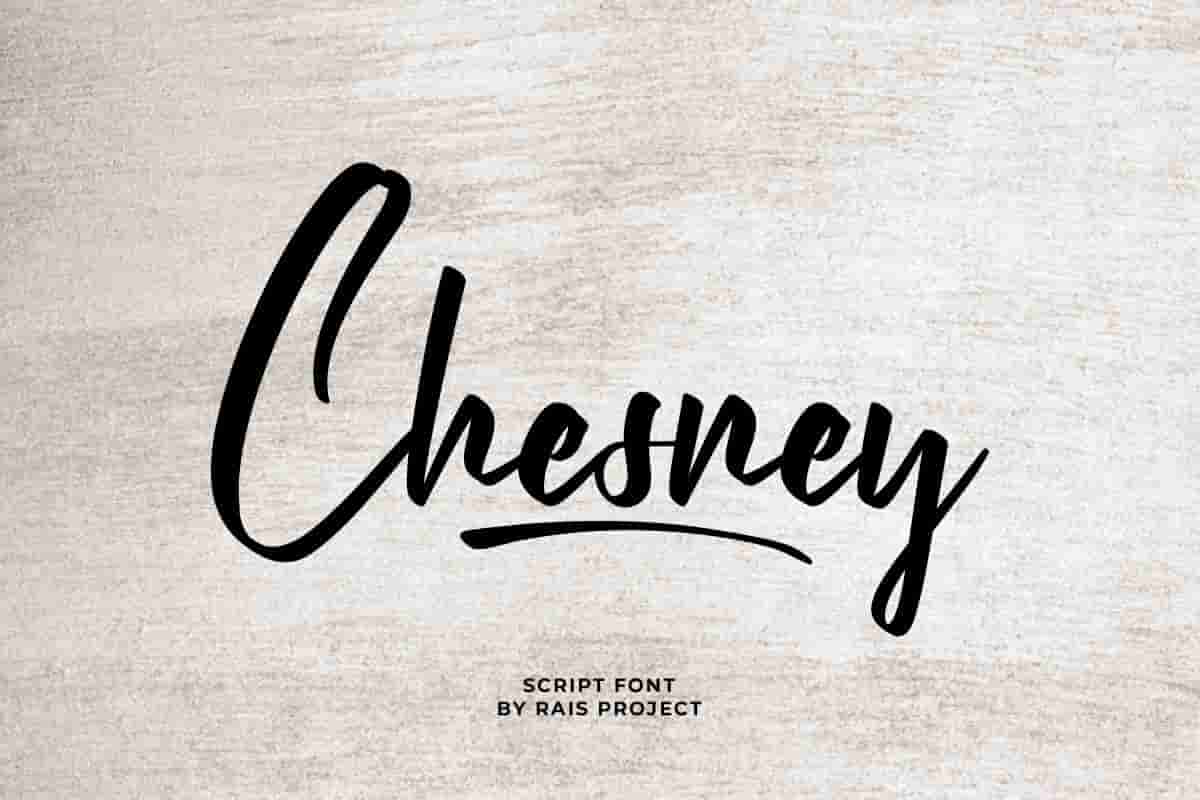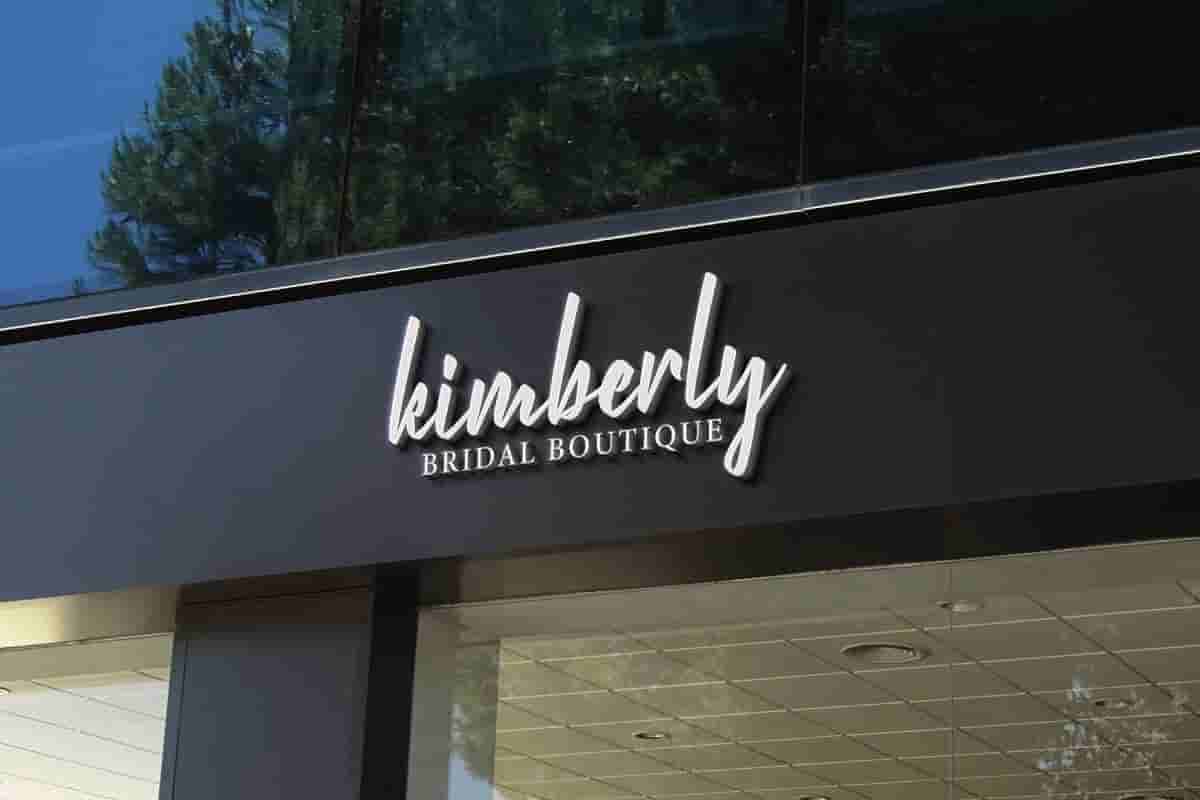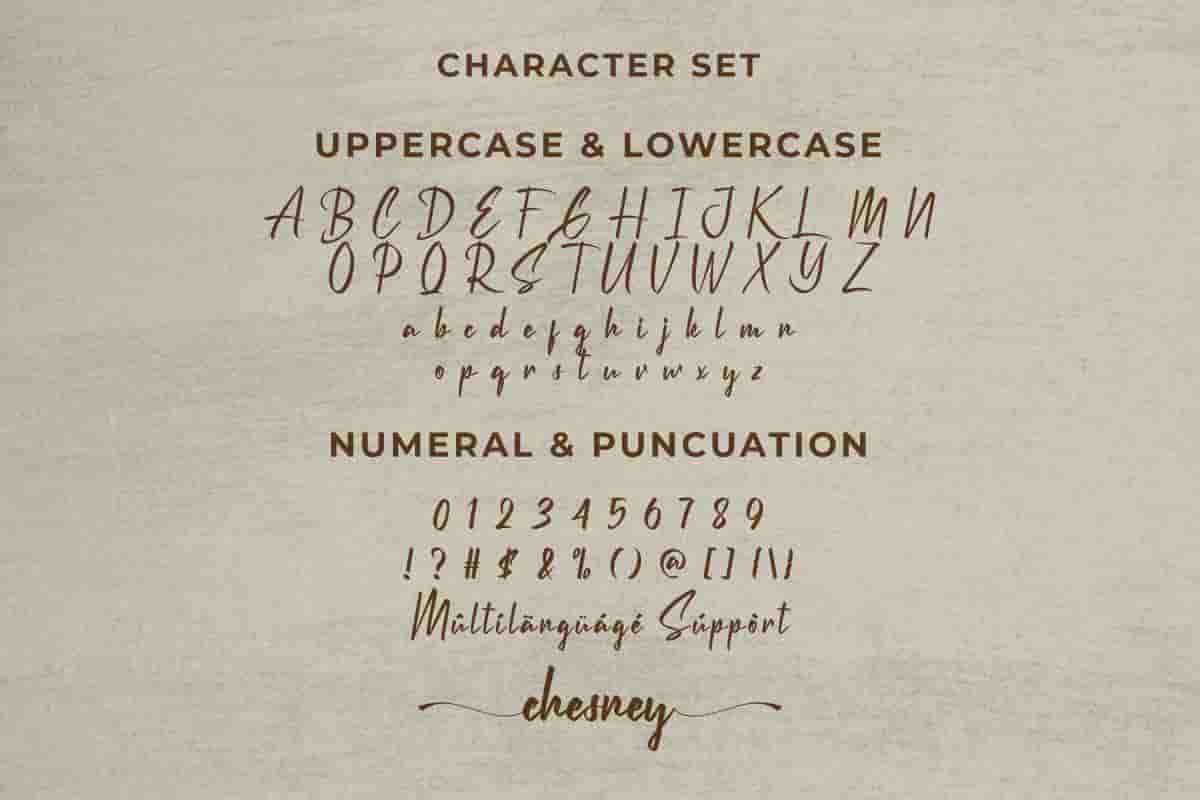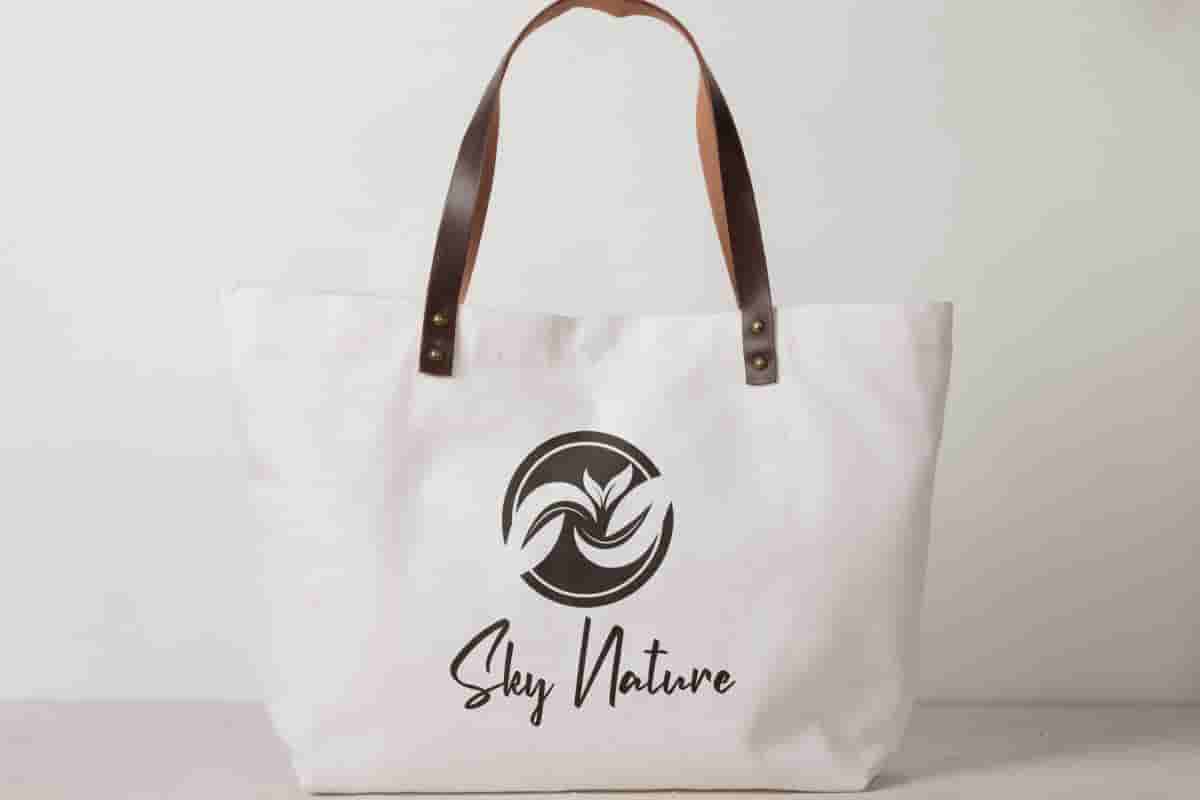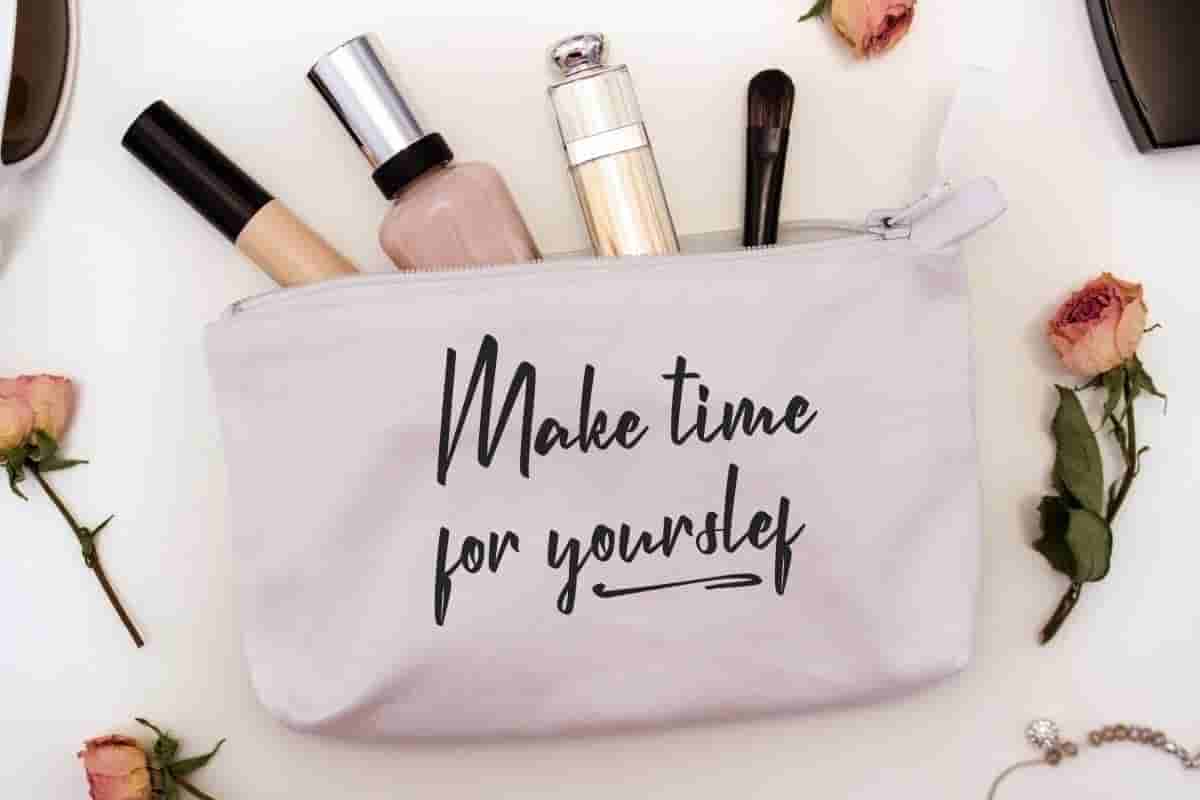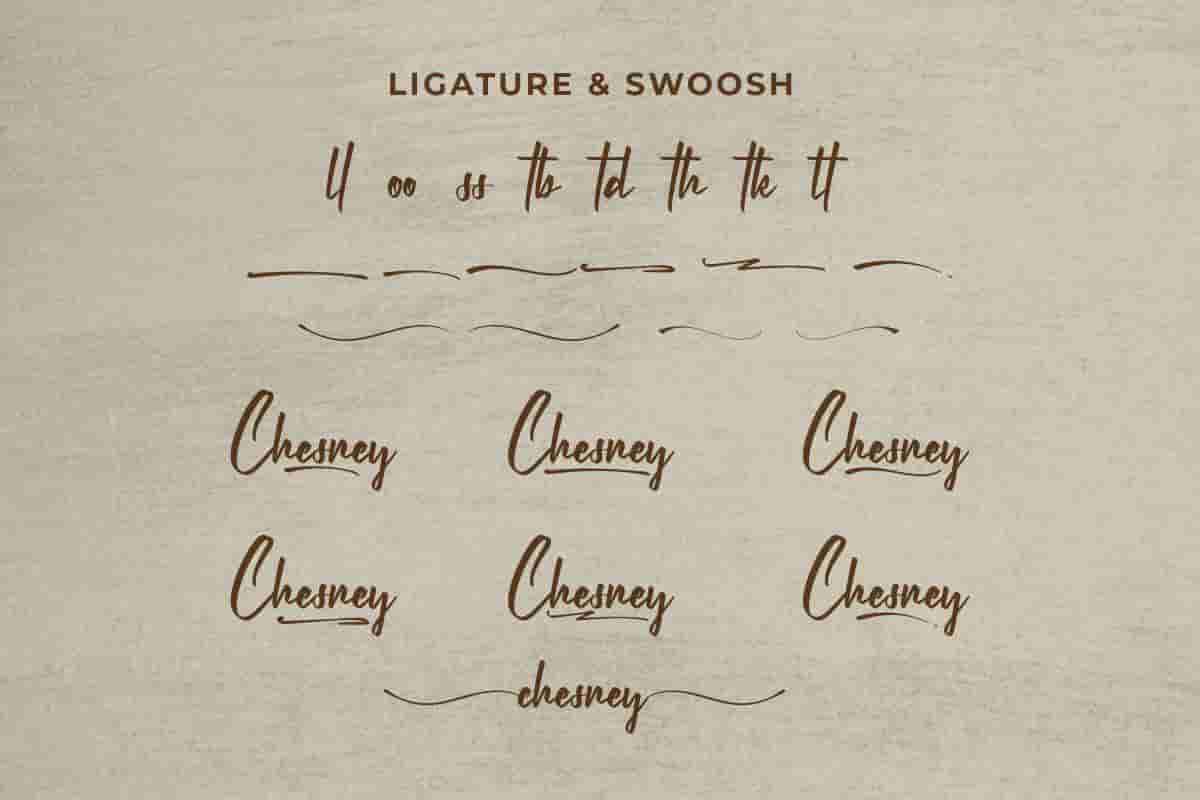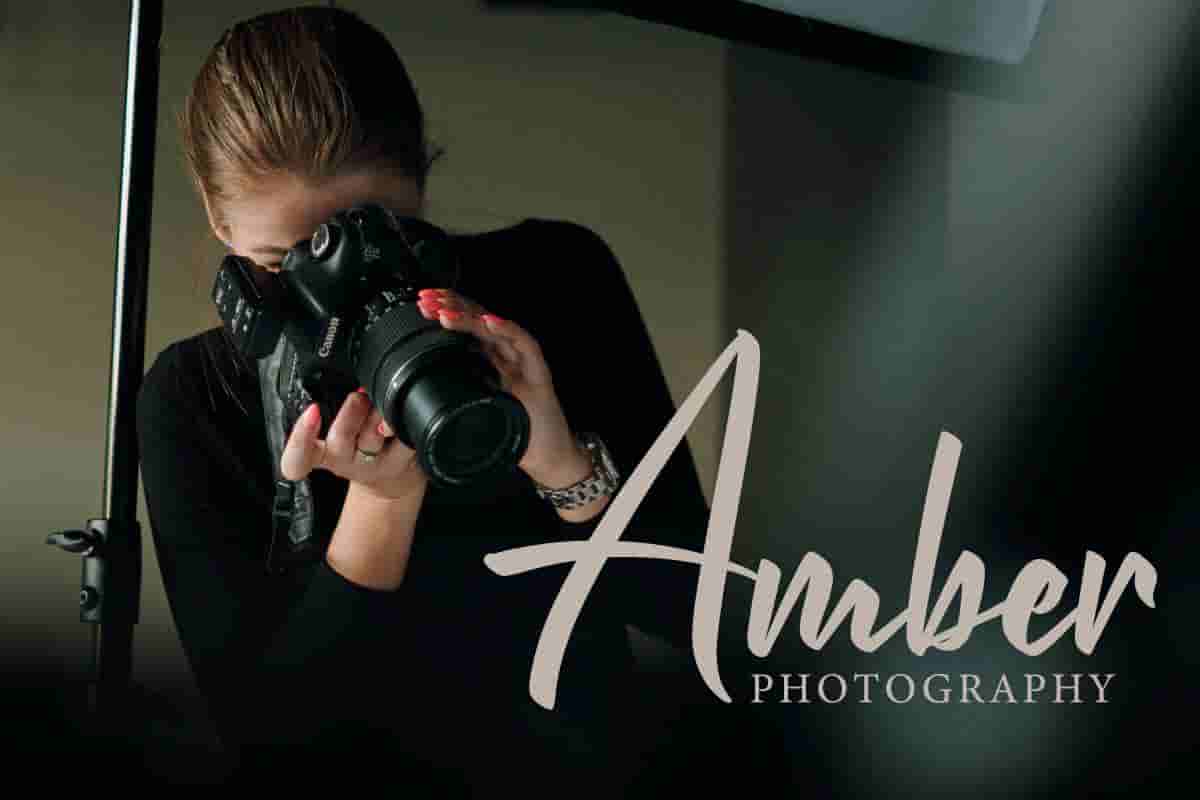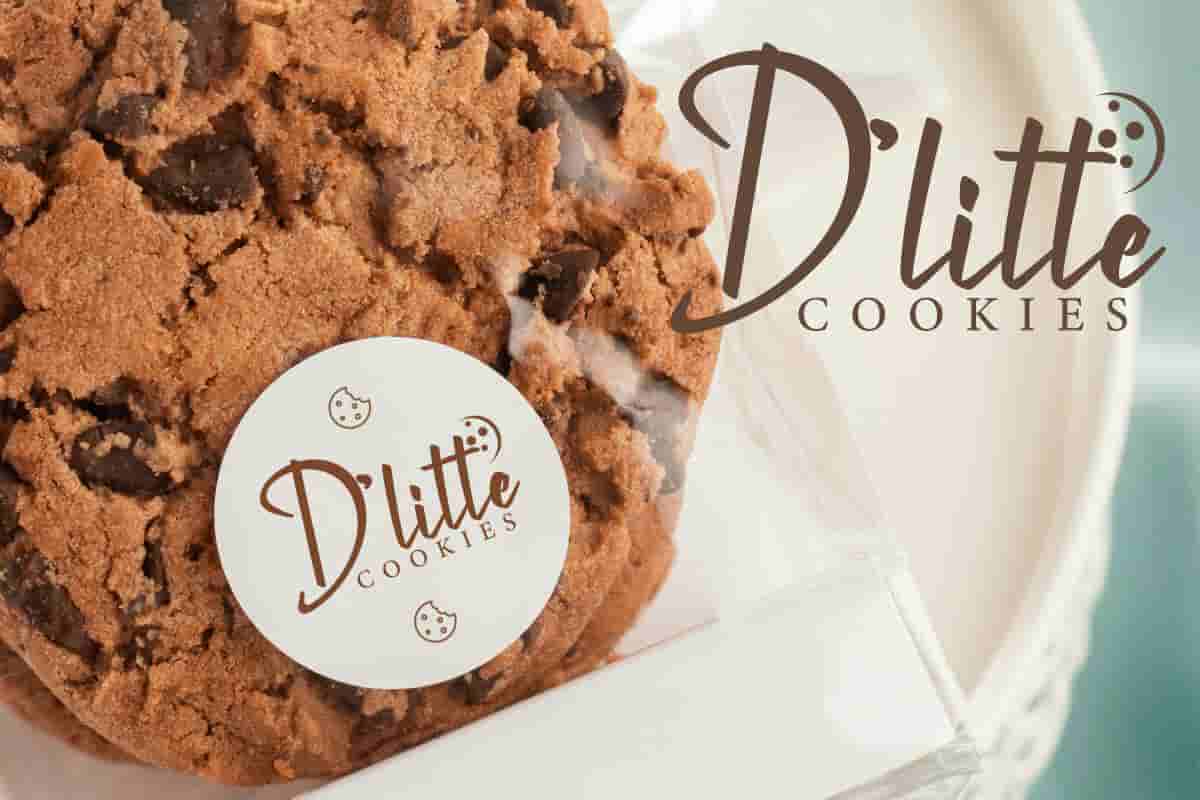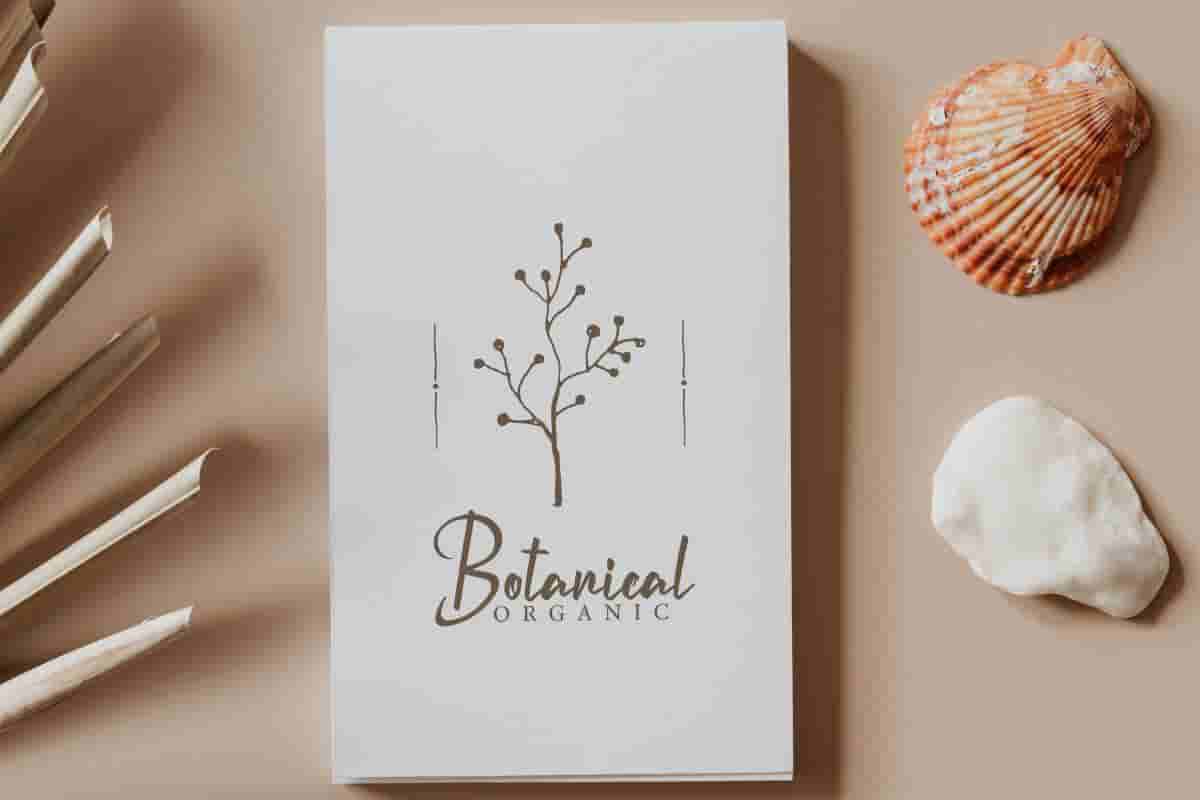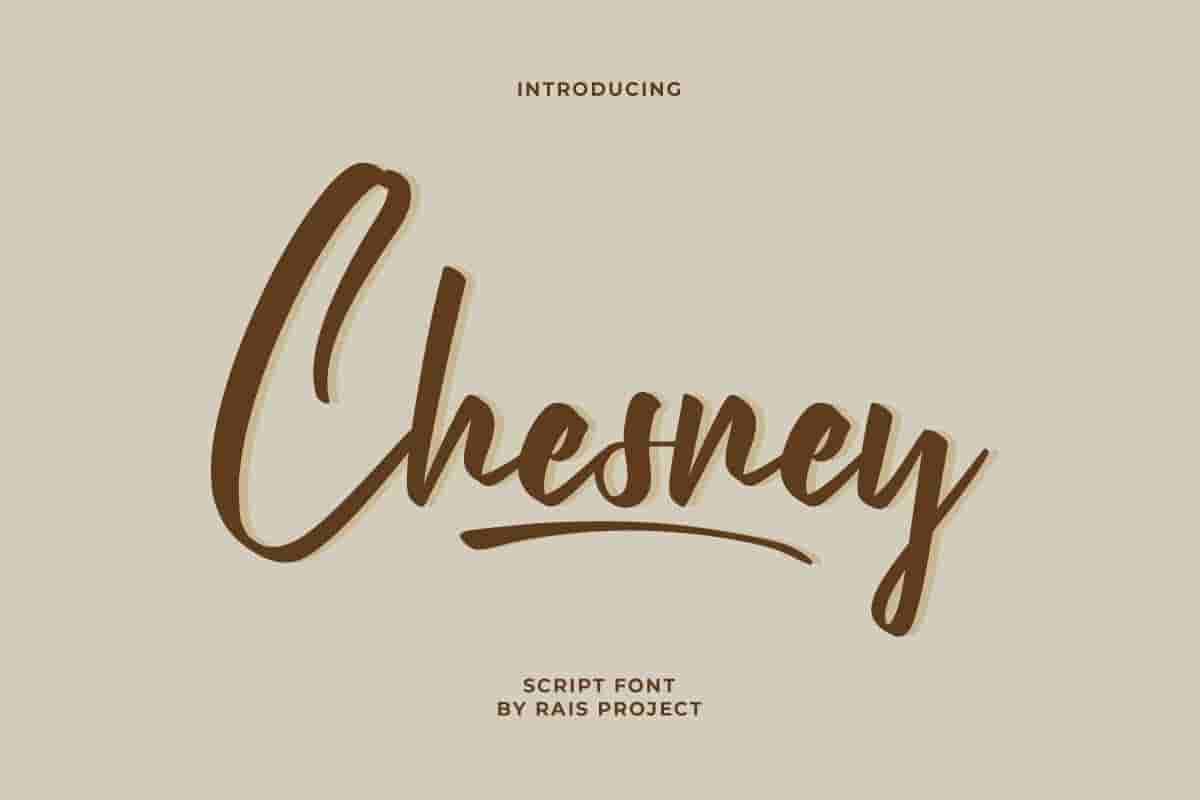
Chesney Calligraphy Font
Chesney is a handwriting calligraphy font – made by RaisProject. Chesney calligraphy Font has beautiful uppercase, lowercase letters, numerals, a range of punctuation and ligatures.
Chesney is a calligraphy handwriting font in stunningly style. You can see the demo font below. You can also input any word you want so you can see what it will look like :
Chesney Calligraphy Font will be great for any of your special projects including : weddings, promotion, events, branding, advertising, magazine, shopping, signage, invitation, stationery, social media posts, product packaging, product designs, label, photography, watermark or and any projects that need handwriting style. Chesney Font includes full set of gorgeous uppercase and lowercase letters, numerals, a large range of punctuation and ligatures. We made Chesney looks stunning handwritten looks, giving realistic hand-lettered style. You will get: